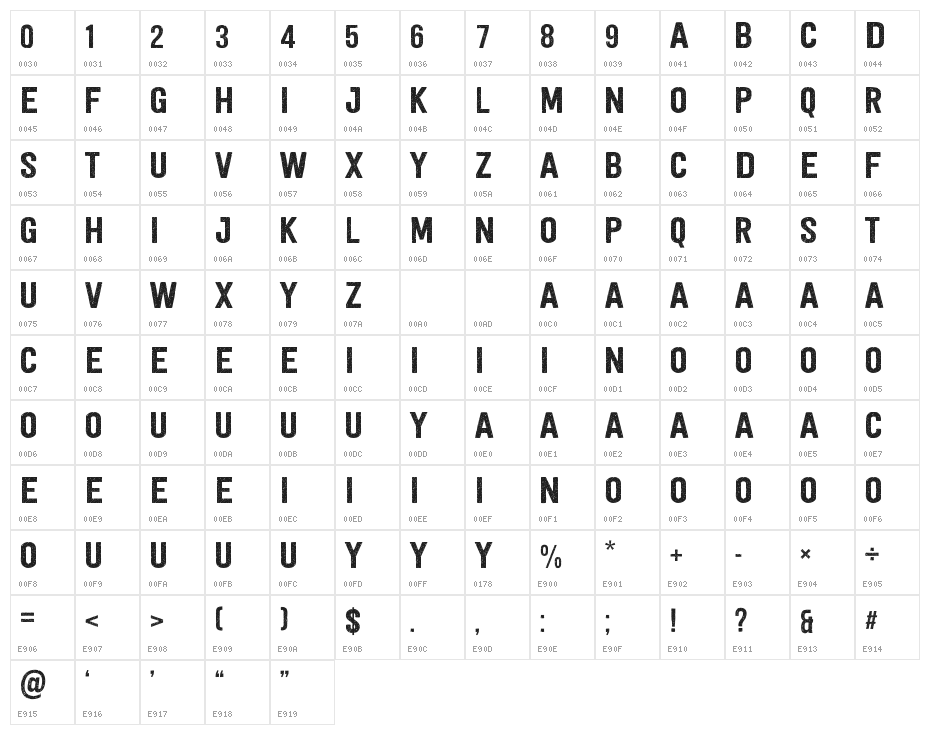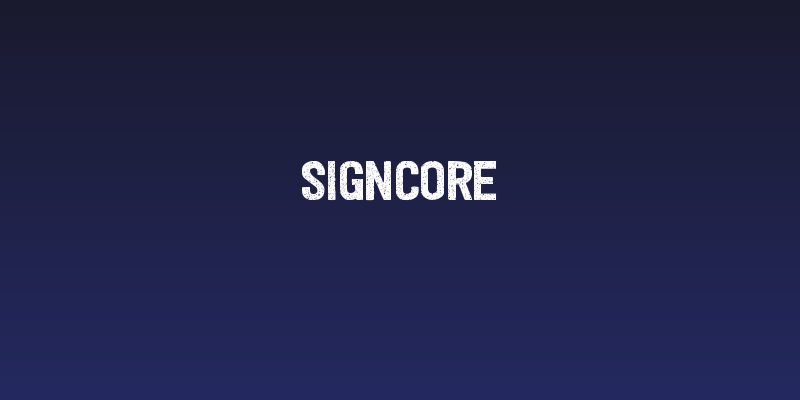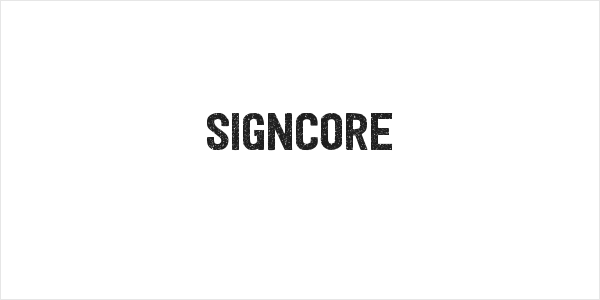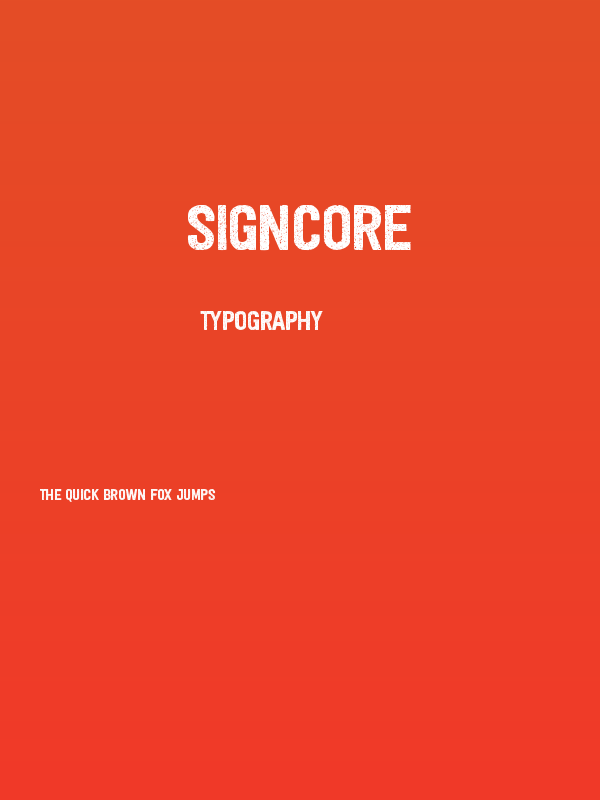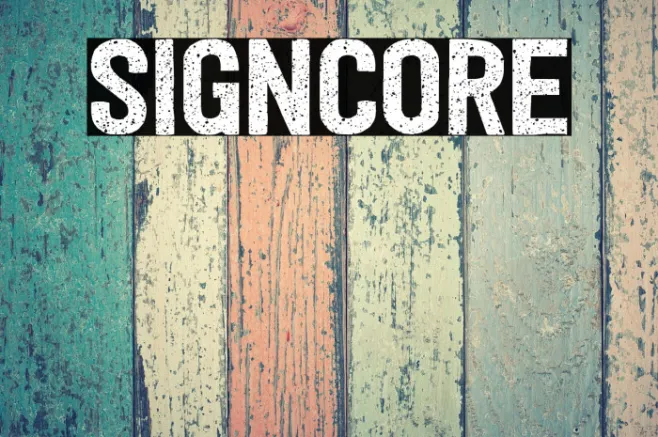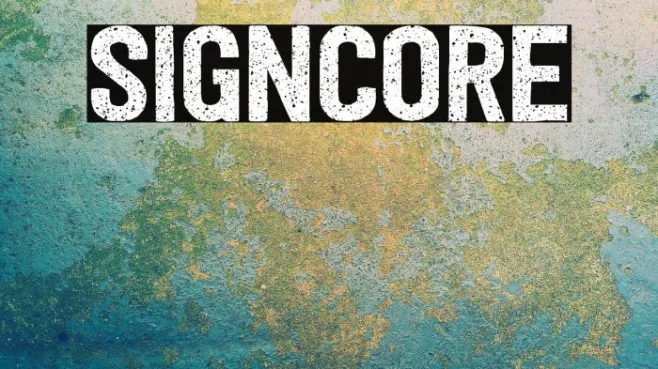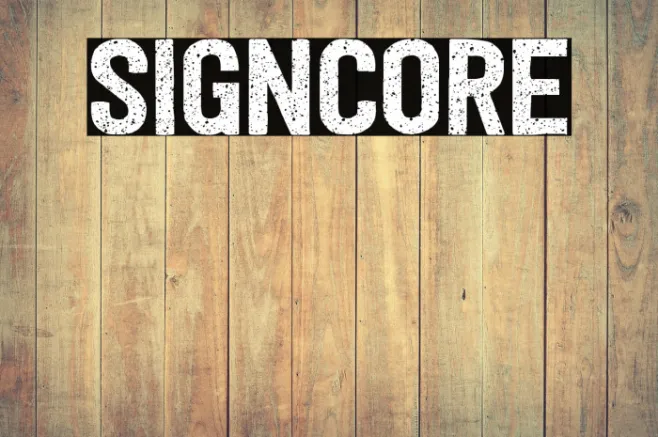
SIGNCORE Font
SIGNCORE Description
This font features a bold, textured design with a distressed, speckled appearance that gives it a rugged and vintage feel. The characters are uppercase and maintain a consistent height, with a strong presence that makes them ideal for impactful designs. The numbers follow the same style, ensuring uniformity across all characters. The texture adds a unique character to each letter, making it stand out in any design project. The font's boldness and texture make it suitable for projects that require a strong, eye-catching typeface.
| Proposed Projects | Ideal for posters, signage, branding, and any design requiring a bold, vintage look. |